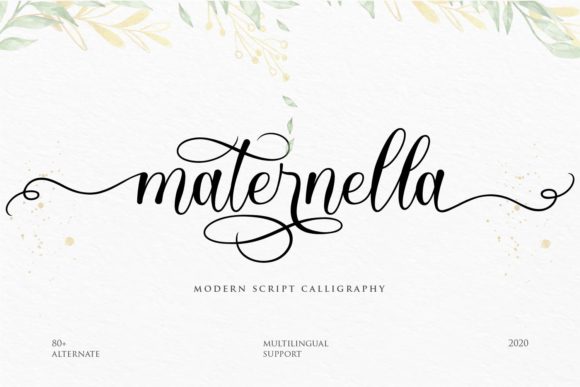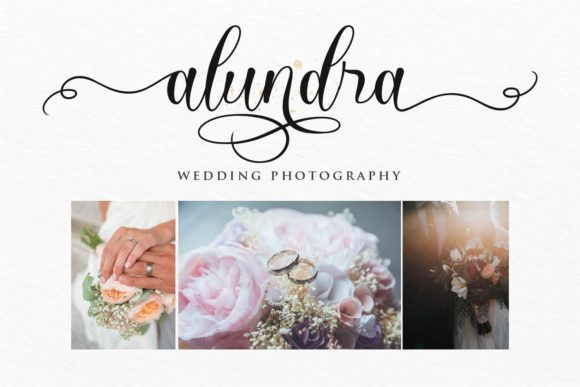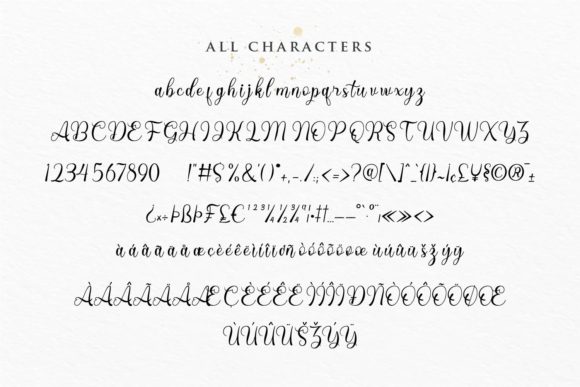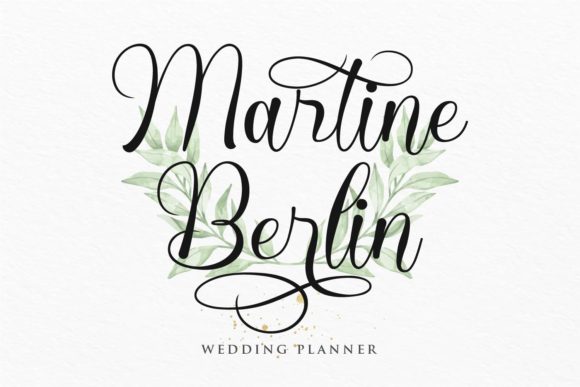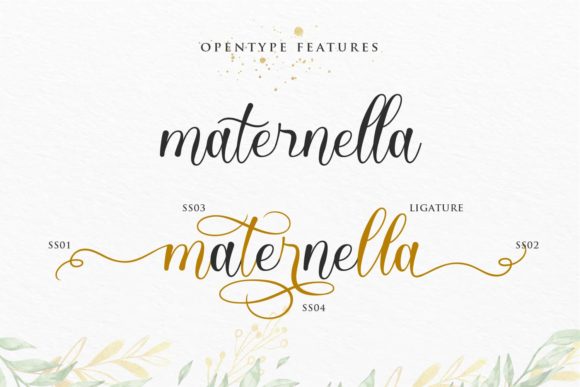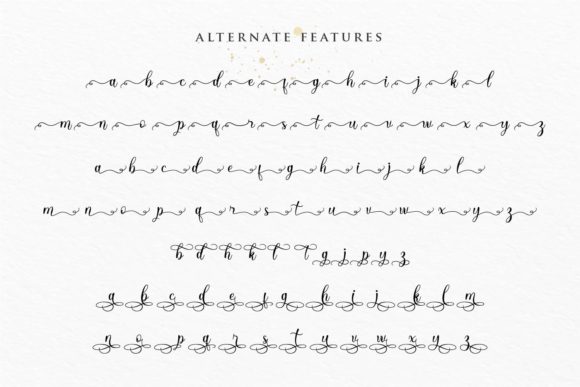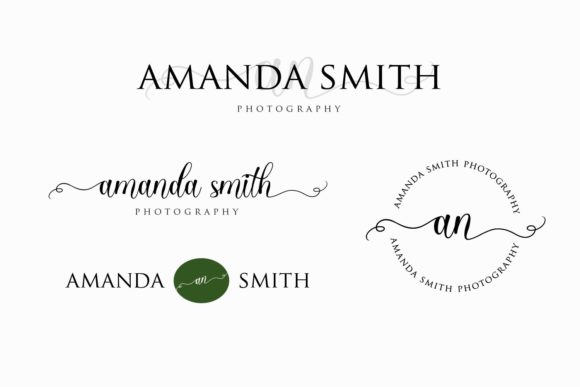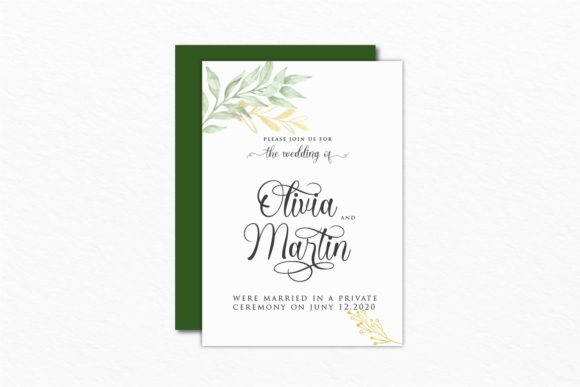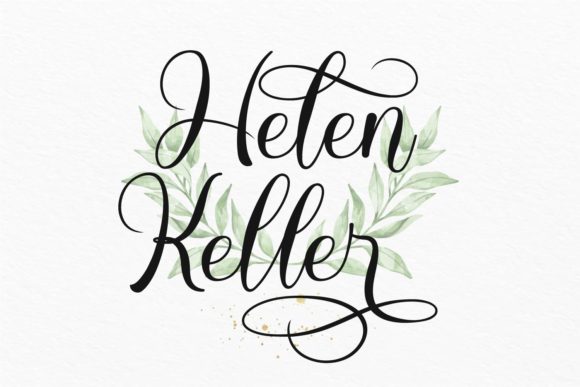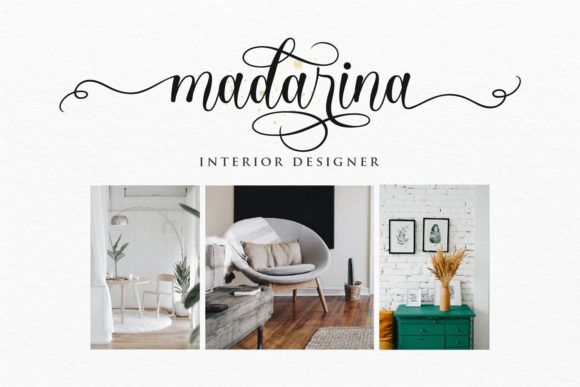
Maternella Font
About Maternella Font
Maternella is a timeless and flowing handwritten font. This font is PUA encoded which means you can access all of the glyphs and swashes with ease! It features a varying baseline, smooth lines, gorgeous glyphs and stunning alternates. Fall in love with its incredibly versatile style and use it to create spectacular designs!